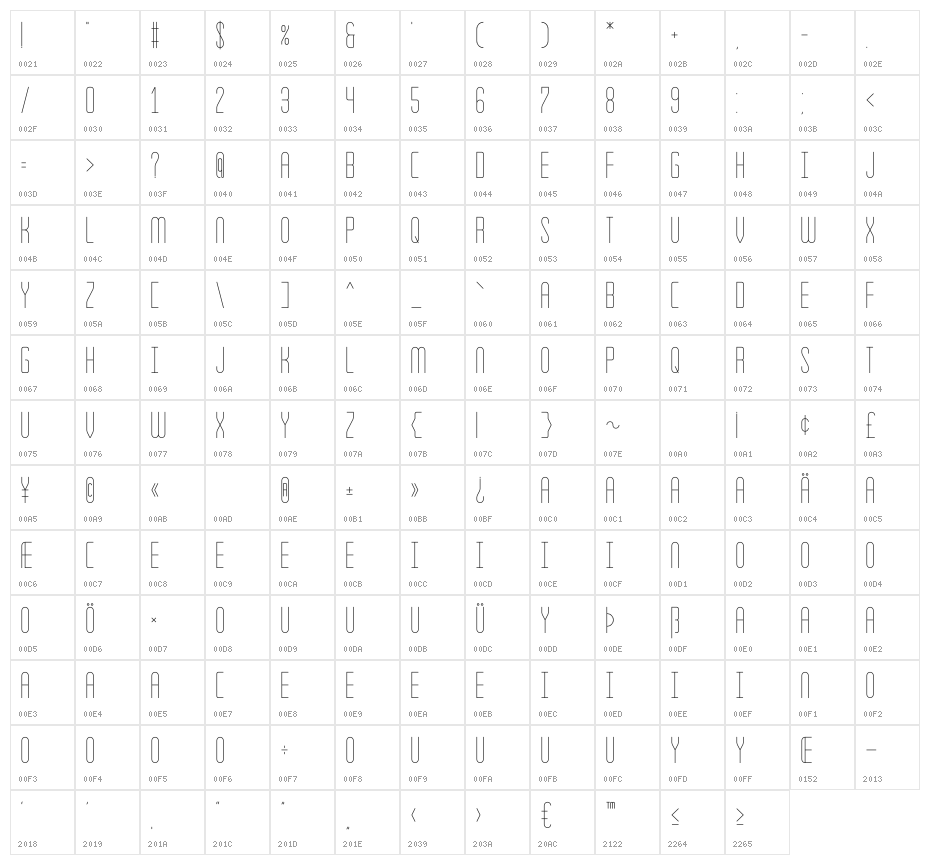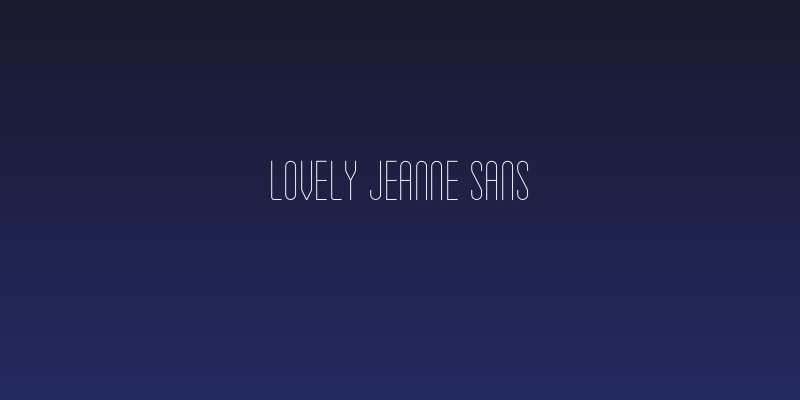
Lovely Jeanne Sans Font
Lovely Jeanne Sans Description
This font features a sleek, modern design with elongated, narrow characters that convey a sense of elegance and sophistication. The uppercase and lowercase letters maintain a consistent height, creating a uniform appearance. The numerals and special characters are designed with the same thin, elongated strokes, ensuring visual harmony across all elements. The overall style is minimalist, making it suitable for contemporary design projects where clarity and style are paramount.
Proposed ProjectsIdeal for fashion magazines, luxury branding, minimalist posters, and modern web design.